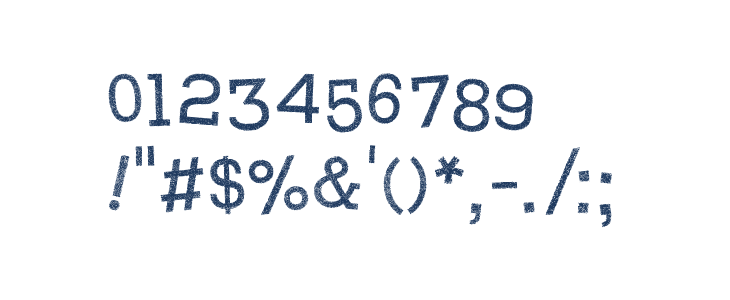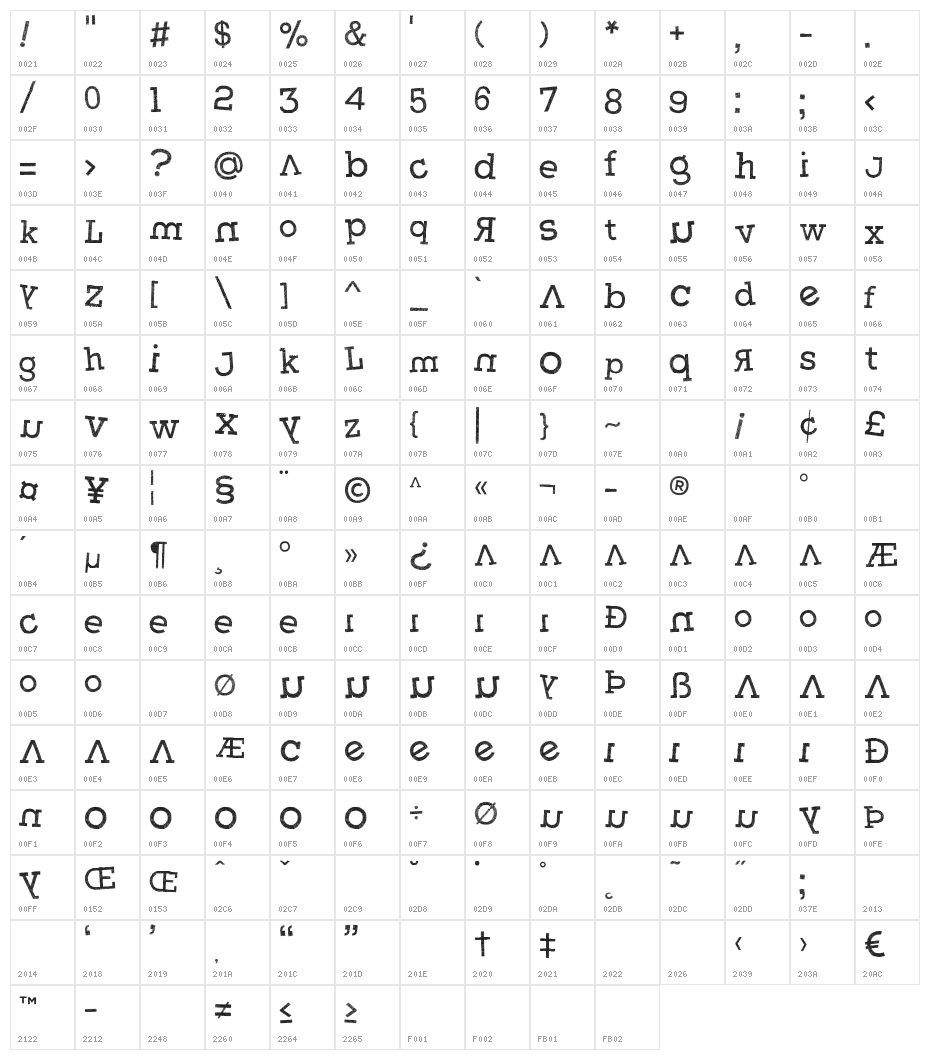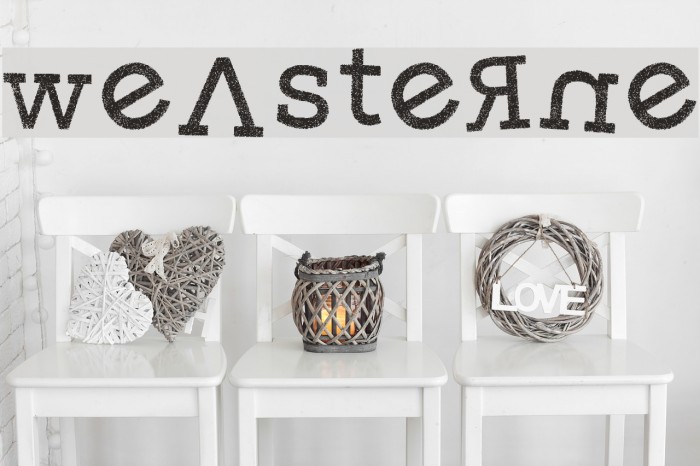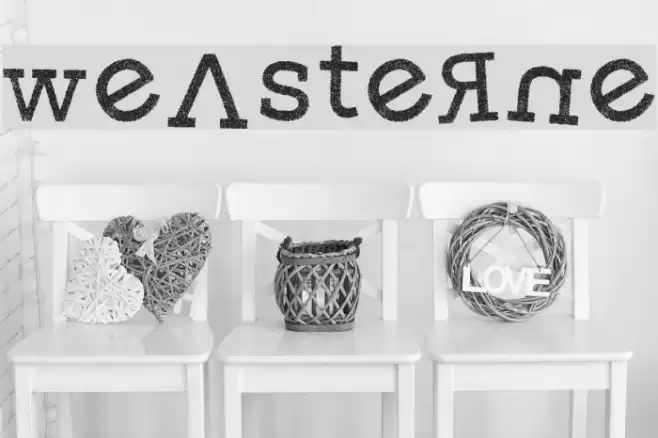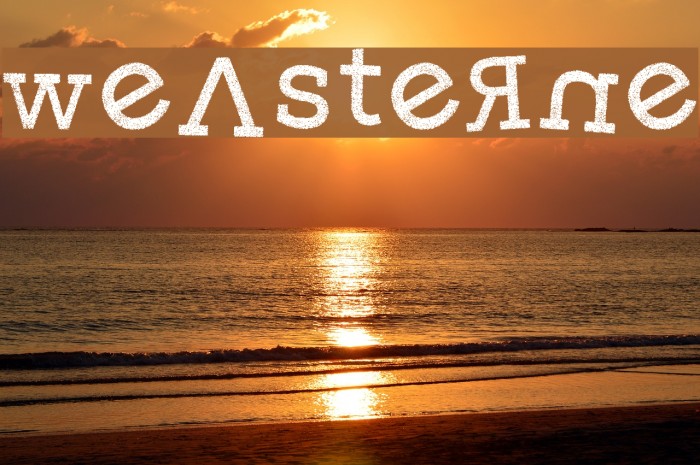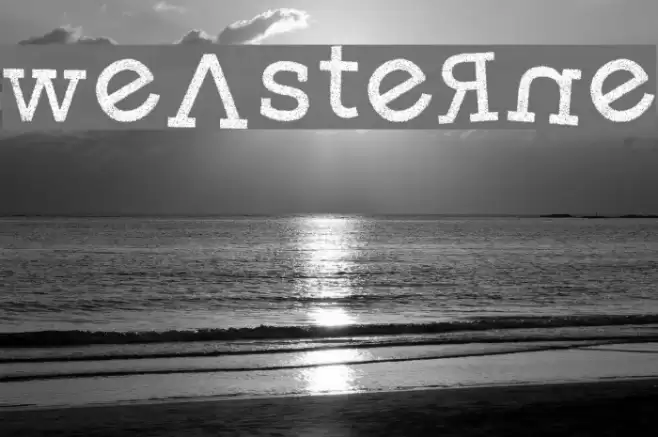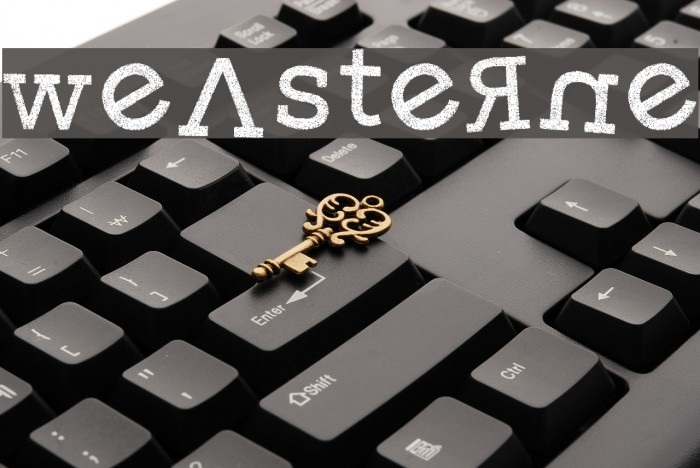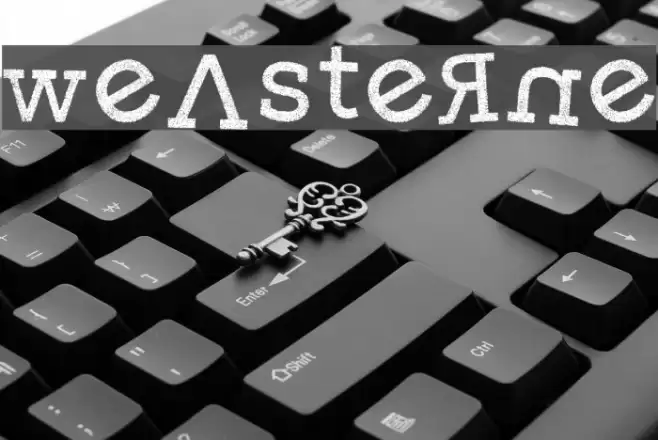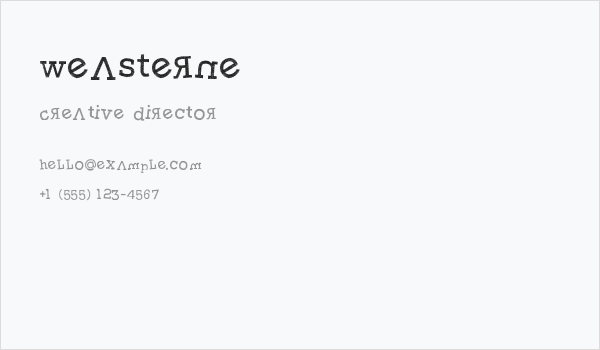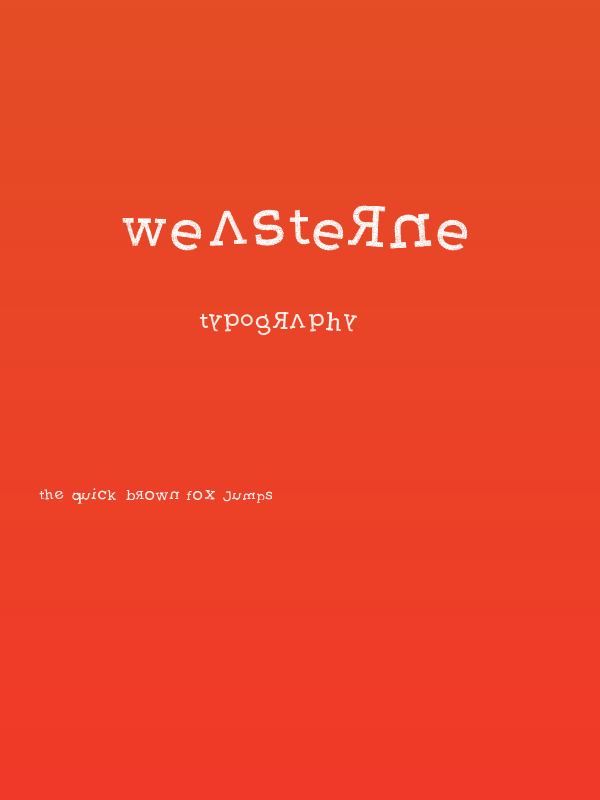
Weasterne Font
Weasterne Description
This font features a bold, textured appearance reminiscent of vintage typewriter styles. The characters have a slightly distressed look, adding a rustic and handcrafted feel. The letters are uniformly bold with consistent stroke thickness, providing a strong visual impact. The serifs are prominent and slightly curved, giving the font a classic yet playful touch. The numbers and special characters maintain the same bold and textured style, ensuring consistency across all glyphs. This font is ideal for projects that require a touch of nostalgia or a handcrafted aesthetic.
| Proposed Projects | Perfect for vintage-themed posters, retro branding, handmade product packaging, and rustic wedding invitations. |